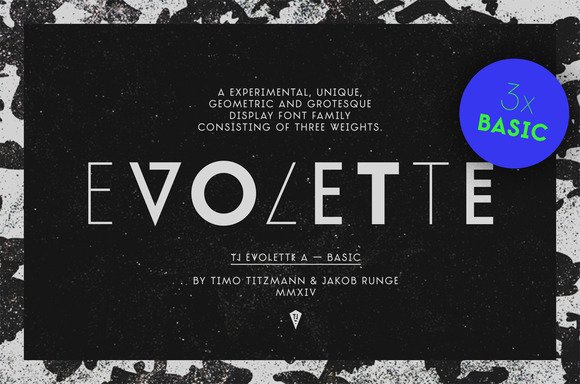
Evolette A Basic Font
TJEvolette A Basic family is unique, customizable, experimental, fashionable and clean. The geometric constructed uppercase grotesque display font family features one basic glyph set, two integrated extravagant stylistic sets for the whole alphabet and some astonishing special characters as well.
The typeface offers numerous combination possibilities between the basic glyph set and the two stylistic sets. The stylistic sets are alternate alphabets – interpretations of Art Deco mixed with straight lined shapes of ancient runes. This variety encourages unusual and extroverted creation in editorial and poster design.